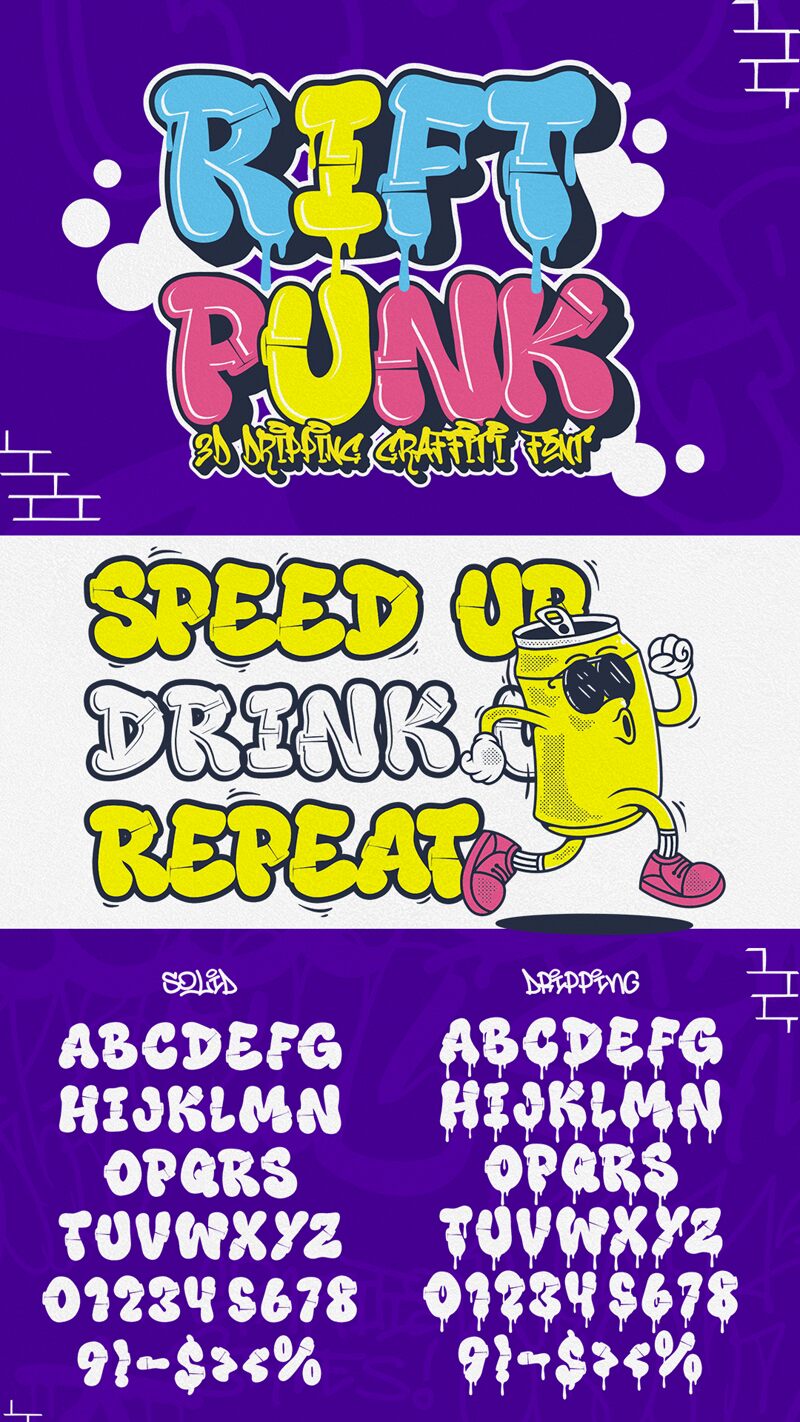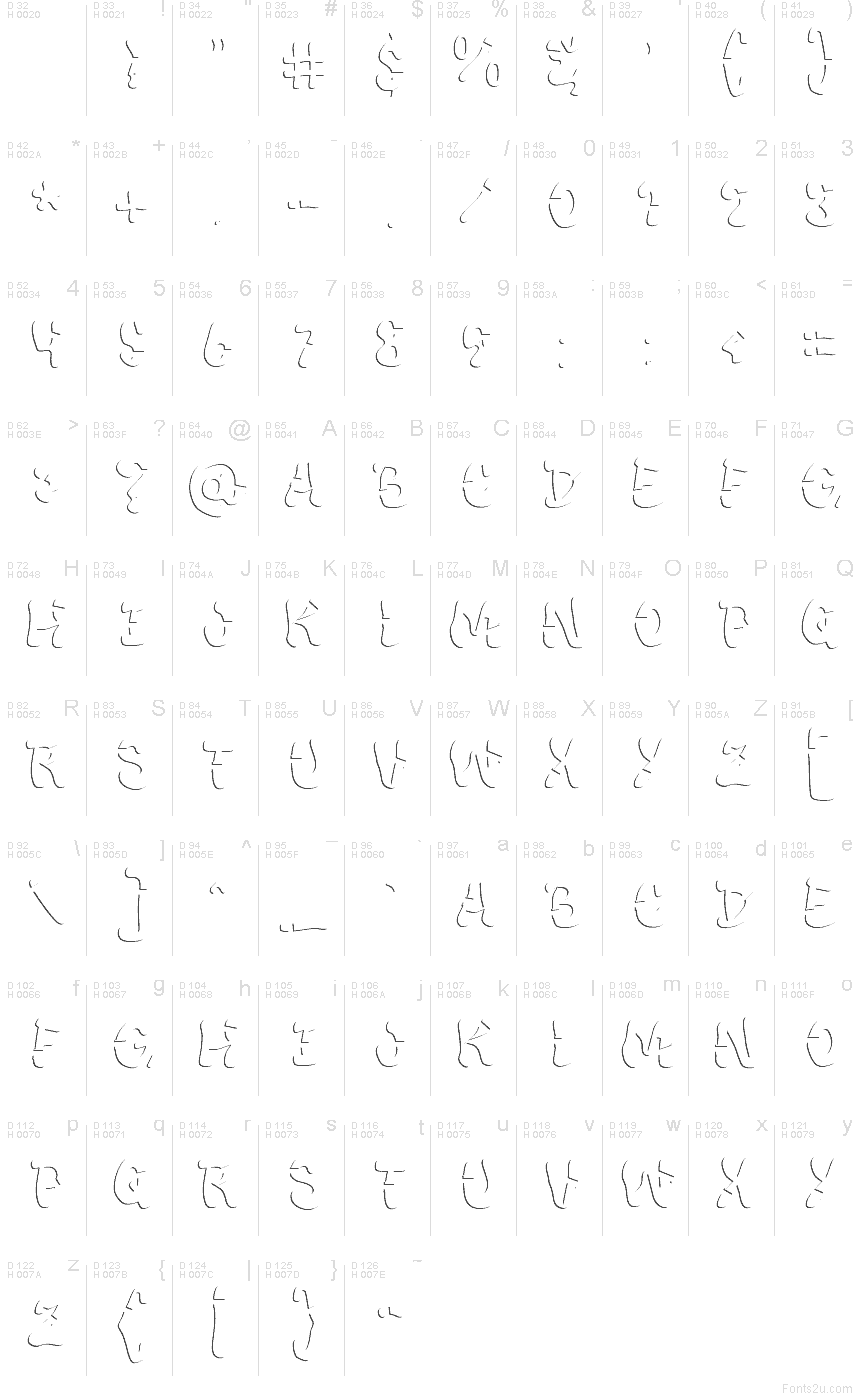
Rift Punk Inner font by Sipanji x Cikareotype is a free graffiti typeface with letters that look like they’ve been sliced out of thin wire and left humming in midair. Ultra-light, broken strokes and subtle inner cuts give it a nervous, electric energy-like a tag half-erased, half-glitched. Within the Rift Punk Inner font family, this style feels especially stripped-down and experimental, leaving lots of breathing room around every mark.
Using Rift Punk Inner, you get a graffiti font that shines on experimental posters, underground event flyers, glitchy album art, zines, streetwear graphics, and edgy branding for music or art projects. The airy structure loves big sizes and wide tracking; pair this free font with a bold geometric sans for supporting text to anchor its wiry, restless character.